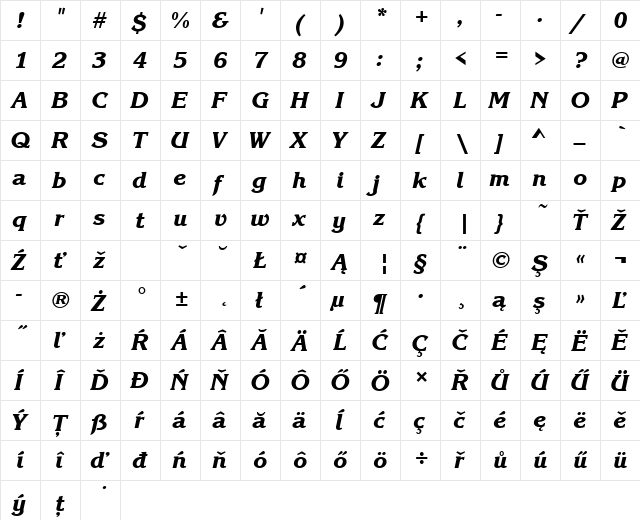
KorinnaItcTEEExtBol Italic
Design Context for KorinnaItcTEEExtBol Typeface
KorinnaItcTEEExtBol is a composed and adaptable typeface that performs quietly and consistently across a wide range of design contexts. The slanted form adds forward momentum and visual energy.